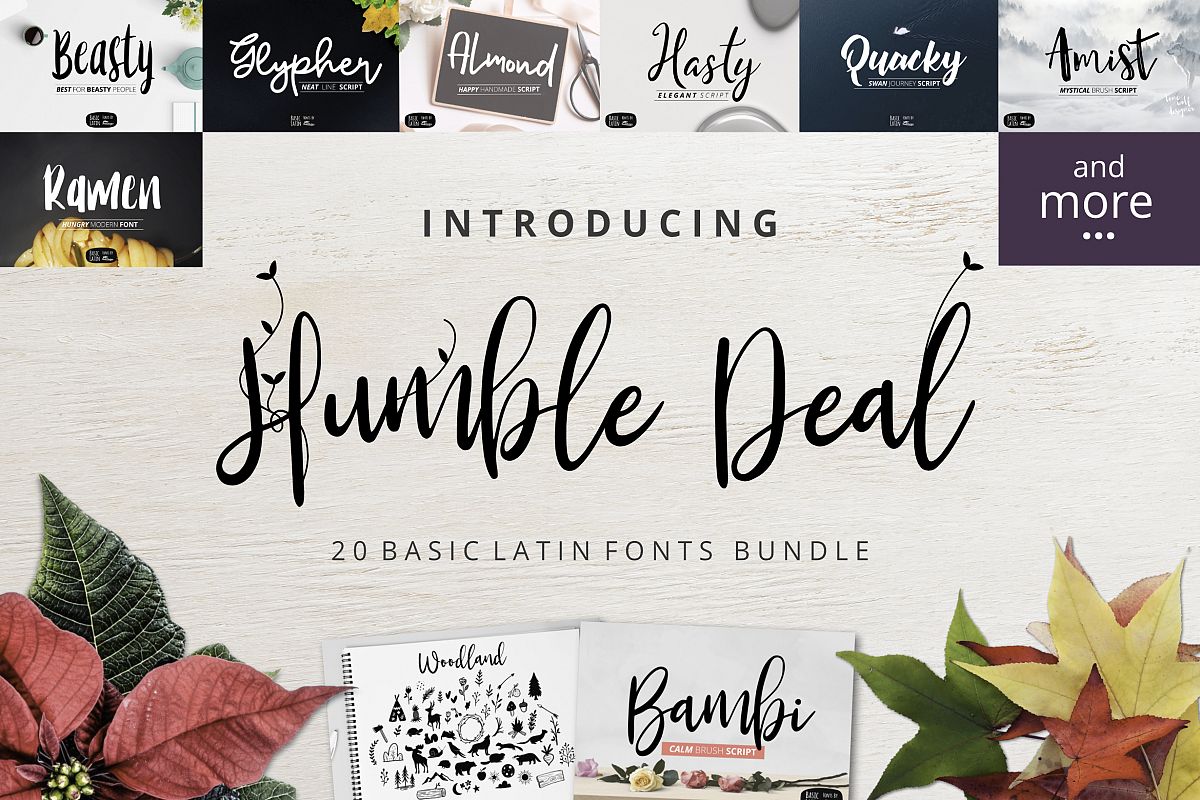
Humble Deal - 20 Font Bundle
Humble Deal is Here
20 Gorgeous fonts
What you get
1. Bambi color font (Best Seller December)
2. Glypher script (Favorite)
3. Amist mistical font (Favorite)
4. Befalow rustic font (Best Seller September)
5. Beasty font (Best Seller August)
6. Majesty luxury font
7. Quacky font (Favorite)
8. Realism font
9. Rosita flourish font
10. Ramen the hungry font (Favorite)
11. My way script
12. Hasty font (Best Seller November)
13. Realm font
14. Knight simple font
15. Bold Ink font (Favorite)
16. Alexa modern font (Favorite)
17. Nefalin yummy script
18. Wasabi asian style
19. Tania Kast
20. Almond script (Best Seller January)
Basic Latin (Standard English character , number and punctuation)
Mostly Script